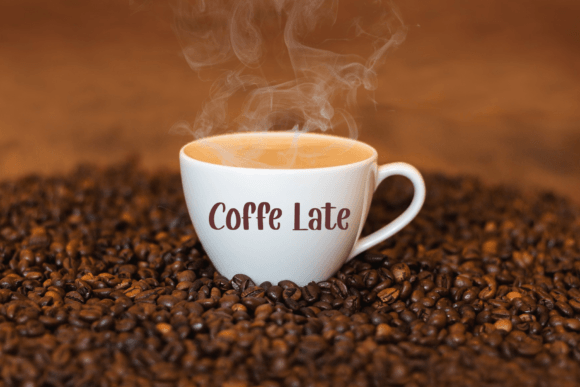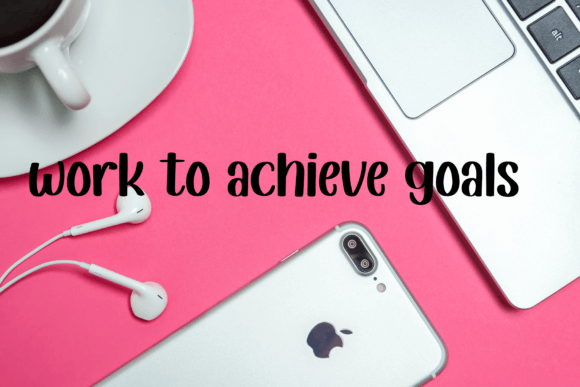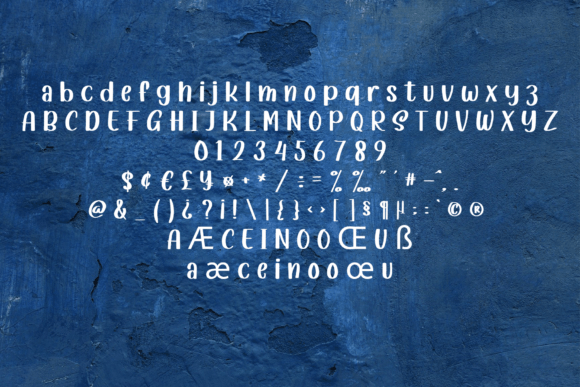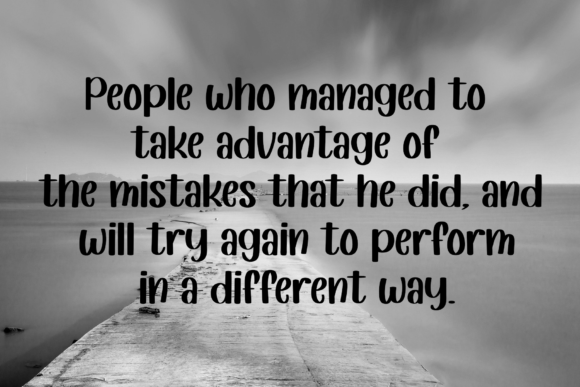
Meet the Font that’s About to Become Your New BFF
Who hasn’t been there – staring blankly at a blank canvas, trying to find the perfect font to bring your creative project to life? For designers, choosing the right font can be a daunting task, especially when you’re working on a tight deadline. But what if you could have a trusted companion, a font that’s as versatile as it is stylish, to help you create something truly special?
Enter Good Boy Font, a cool and modern display font that’s perfect for any occasion. Whether you’re crafting handmade cards, designing digital presentations, or simply need a font that’s going to make your project stand out, Good Boy Font has got you covered. As a designer, you know how valuable a great font can be – it’s the difference between a project that’s just okay, and one that’s truly remarkable.
Good Boy Font Key Features
- Font Size: The font comes in 4 different sizes: 18pt, 24pt, 36pt, and 48pt, allowing for flexibility in design and layout.
- Resolution: Good Boy Font is designed for high-resolution displays, with a minimum recommended resolution of 300 DPI, ensuring crisp and clear text output.
- Unique Characteristics: The font features a playful, cursive design with a mix of uppercase and lowercase letters, making it perfect for adding a touch of whimsy to designs.
- Font Style: The font is available in regular and bold styles, allowing designers to create contrast and emphasis in their designs.
Good Boy Font Review
As a designer, I’ve had the chance to play around with the “Good Boy Font” and here’s my honest take on it.
- The “Good Boy Font” has a playful, energetic vibe that’s perfect for fun projects like children’s books, cartoon titles, or even social media graphics.
- The font’s bold lines and rounded edges make it easy to read, even at smaller font sizes.
- The font’s versatility allows it to be used in a variety of contexts, from headings to body text.
- The font’s bold, playful nature can make it difficult to use in more serious or formal projects.
- The font’s rounded edges can sometimes make it look a bit childish or immature.
- The font’s limited character set can make it difficult to use in projects that require a wide range of special characters.
Overall, I think the “Good Boy Font” is a solid choice for designers who need a fun, energetic font for their projects. While it may not be suitable for every project, it’s a great option for those looking to add a bit of whimsy and personality to their designs.
Tips for Getting the Most Out of the Good Boy Font
For the best results, use the Good Boy Font in bold or italic styles to add emphasis. Experiment with different font sizes and colors to create a visually appealing design. You can also pair the Good Boy Font with other fonts to create a unique look.
The Good Boy Font is ideal for creating playful, child-friendly designs such as:
– Children’s book illustrations
– Educational materials
– Party invitations
– Social media graphics
Alternatives to Good Boy Font for Designers
Montserrat is a modern sans-serif font that is highly legible and versatile. It is suitable for digital products, logos, and branding materials. Montserrat is a great alternative to Good Boy Font as it has a similar feel but with a more minimalist and clean design.
Lato is a clean and elegant sans-serif font that is highly customizable. It is suitable for websites, applications, and corporate branding materials. Lato is a good alternative to Good Boy Font as it has a similar feel but with a more refined and sophisticated design.
3. Open Sans
Open Sans is a modern sans-serif font that is highly legible and versatile. It is suitable for digital products, logos, and branding materials. Open Sans is a great alternative to Good Boy Font as it has a similar feel but with a more neutral and approachable design.